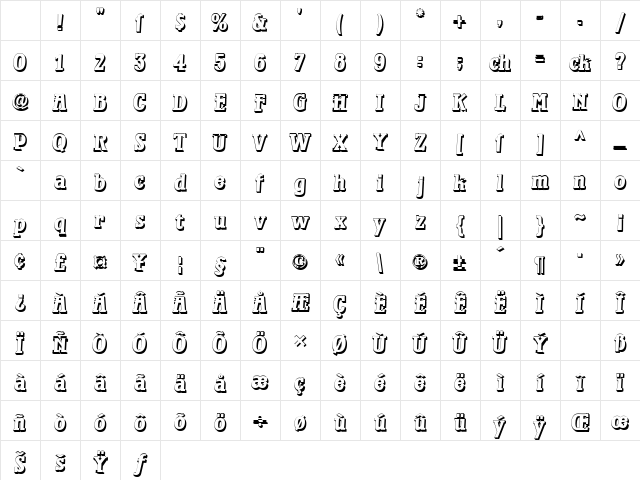
Complete Waterloo Relief Regular glyph index. Displaying only characters natively supported by Waterloo Relief Regular font.
Waterloo Relief is a composed and adaptable typeface that performs quietly and consistently across a wide range of design contexts.